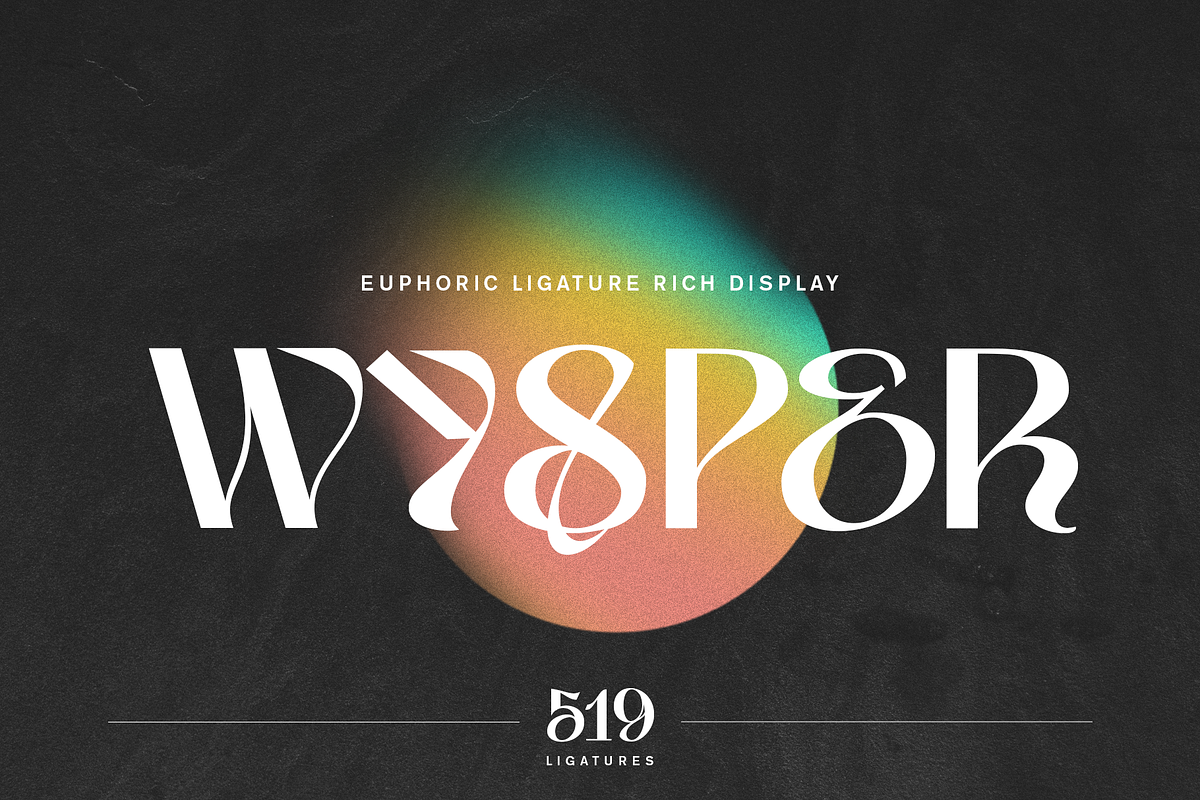
Wysper Font Free Download is a dreamy and elegant serif typeface that blends modern minimalism with soft, whisper-like curves. Perfect for high-end branding, editorial layouts, fashion magazines, wedding stationery, and social media content, Wysper brings a calm, sophisticated tone to any project.
Designed with balanced contrast and smooth terminals, Wysper delivers both style and readability. It includes uppercase and lowercase letters, punctuation, multilingual support, and is fully compatible with Mac and Windows systems.